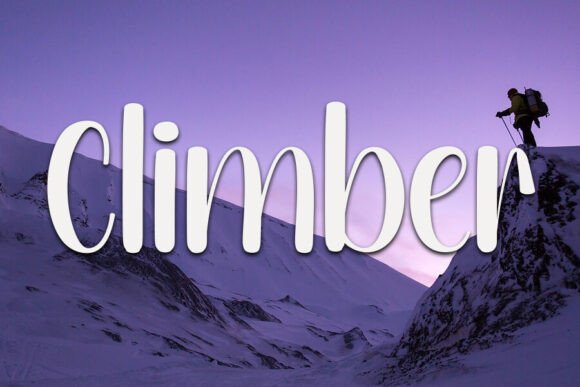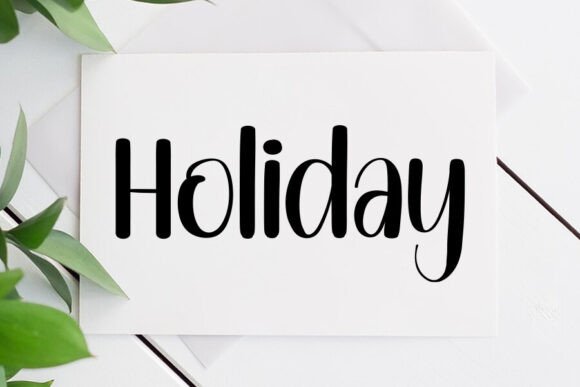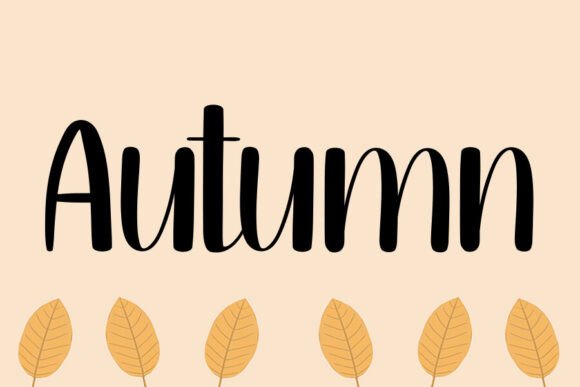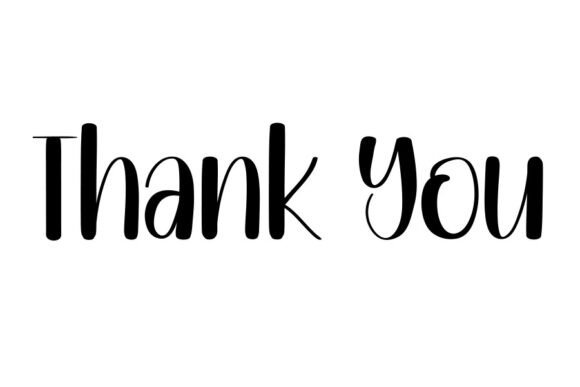
Get Ready to Deck the Halls with Joy: Introducing Happy Christmas Font
It’s that time of the year when creativity knows no bounds, and our imagination runs wild with festive ideas. You’re sipping hot cocoa, surrounded by twinkling lights, and envisioning the perfect design to spread holiday cheer. The question is, what font will you choose to make your project shine?
Meet Happy Christmas Font, a charming and elegant script font designed to add a touch of warmth and romance to your designs. Whether you’re creating branding materials, wedding invitations, or greeting cards, this sweet font is sure to bring a smile to your audience’s faces. With its casual yet sophisticated vibe, Happy Christmas Font is the perfect choice for designers looking to add a personal and festive touch to their projects.
Key Features of Happy Christmas Font
- Unique Characteristics: The font features a playful and festive design, with bold lines and rounded shapes, making it perfect for holiday-themed designs and promotional materials.
Happy Christmas Font Review
Overall, I think the Happy Christmas Font is a fun and festive addition to any holiday design project. It’s perfect for creating a cheerful atmosphere and adds a touch of whimsy to your designs.
- The font is incredibly versatile and can be used for a wide range of holiday-themed designs, from Christmas cards to gift tags.
- The playful, handwritten feel of the font adds a personal touch to your designs and makes them feel more special.
- The font is available in a variety of weights and styles, making it easy to customize to suit your needs.
- The font may not be suitable for more formal or professional designs, as it can come across as a bit too playful.
- The font’s irregularities can make it difficult to read at smaller font sizes, which may limit its use in certain design applications.
- The font’s uniqueness may make it less suitable for designs where a more traditional or straightforward font is preferred.
Overall, I think the Happy Christmas Font is a great choice for holiday designs that need a bit of personality and flair. Just be sure to use it thoughtfully and in the right context to get the most out of it.
Use the “Happy Christmas Font” to add a festive touch to your holiday designs. Experiment with different font sizes and styles to create a visually appealing effect. You can also use the font in combination with other festive elements, such as holly or snowflakes, to create a cohesive design.
The “Happy Christmas Font” is ideal for use in holiday-themed designs, such as:
- Christmas card templates
- Holiday party invitations
- Gift tags and labels
- Seasonal social media posts Alternative Christmas Fonts for Designers
- Choose a rectangular shape as the background of the card.
- Use Happy Christmas Font to create a festive message, such as “Merry Christmas” or “Season’s Greetings”.
- Add bold, red and green colors to highlight the font and create a festive atmosphere.
- Use elegant snowflake patterns to add texture and depth to the design.
Creative Project Ideas Using Happy Christmas Font
Project 1: Christmas Card Design
Create a festive Christmas card using Happy Christmas Font to add a touch of holiday cheer. Combine the font with bold, red and green colors, and elegant snowflake patterns to create a unique and eye-catching design.
How to use Happy Christmas Font:
Create eye-catching social media graphics using Happy Christmas Font to spread holiday cheer. Combine the font with bright colors, festive patterns, and bold graphics to create a visually appealing design.